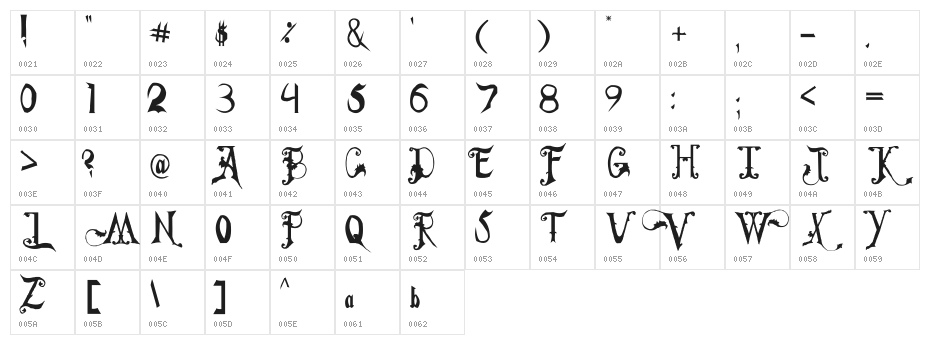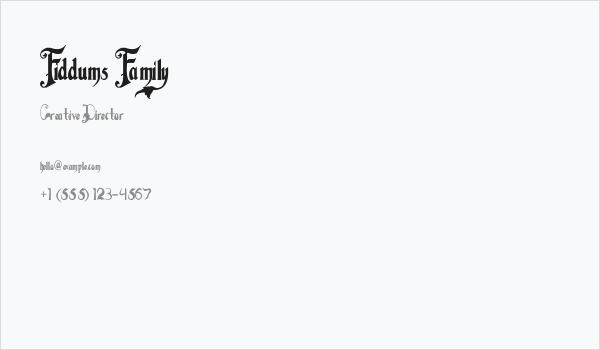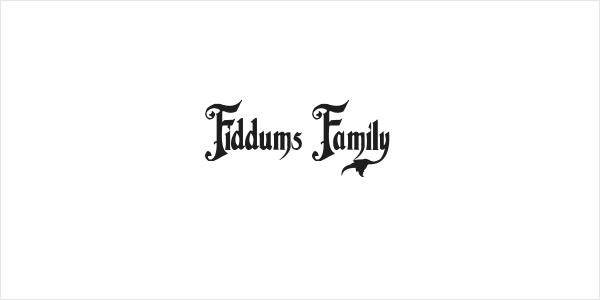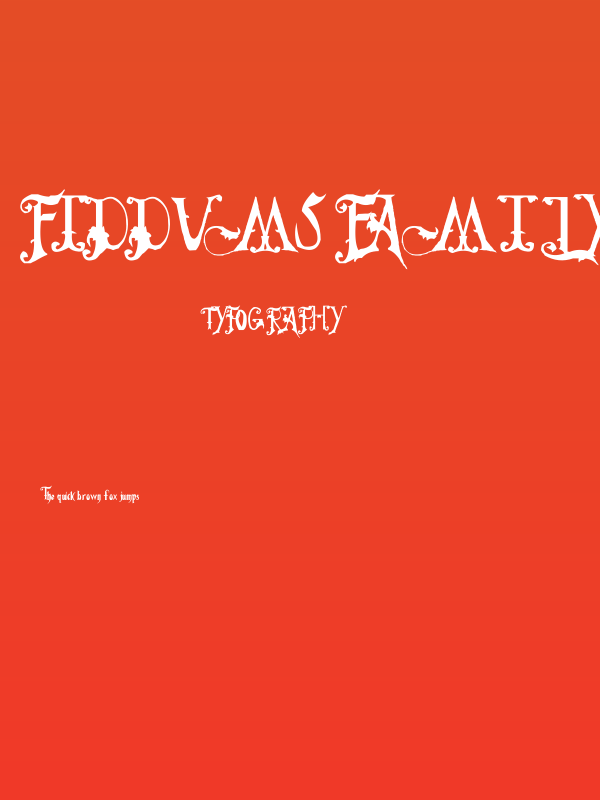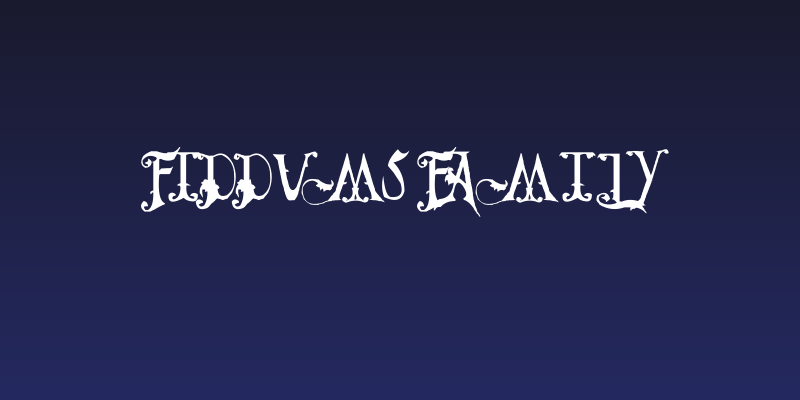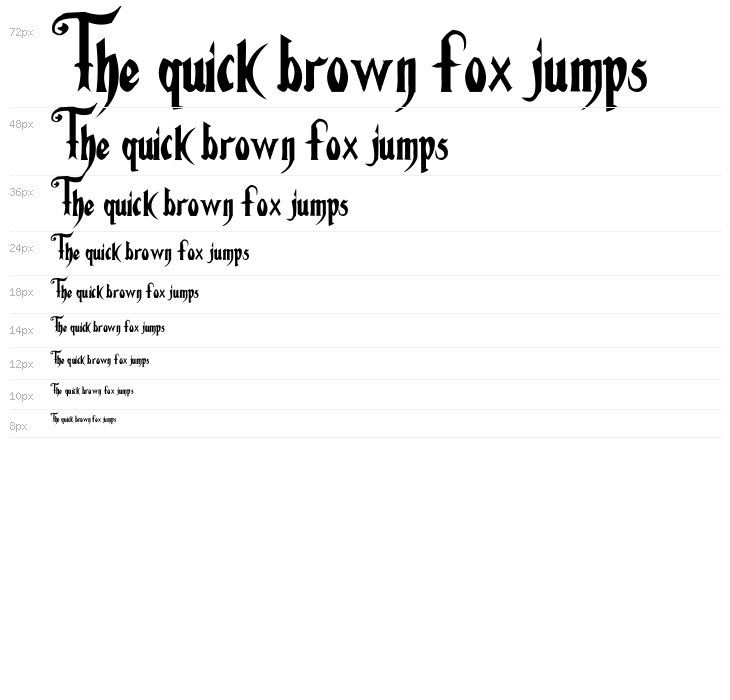
Fiddums Family Font
Fiddums Family Description
This font features a highly decorative and intricate design with elaborate flourishes and embellishments. The uppercase letters are particularly ornate, with swirling extensions and unique shapes that give each character a distinct personality. The lowercase letters maintain a similar style, though they are slightly more restrained in their ornamentation. The numbers and special characters continue the theme of complexity, with bold strokes and artistic flair. This font exudes a gothic and mysterious vibe, making it ideal for projects that require a dramatic and eye-catching typeface.
| Overall Style | Gothic, Decorative |
| Proposed Projects | Ideal for Halloween-themed designs, fantasy book covers, gothic event invitations, and theatrical posters. |